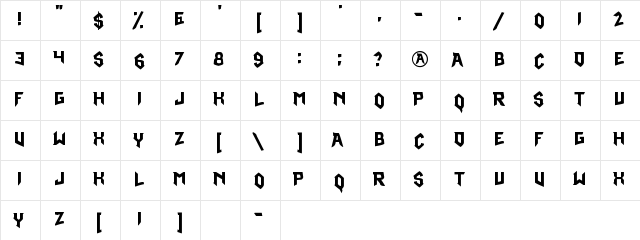
Omega Ruby Regular
| Designer | Andrew McCluskey |
Design Context for Omega Ruby Typeface
Omega Ruby is a composed and adaptable typeface that performs quietly and consistently across a wide range of design contexts.